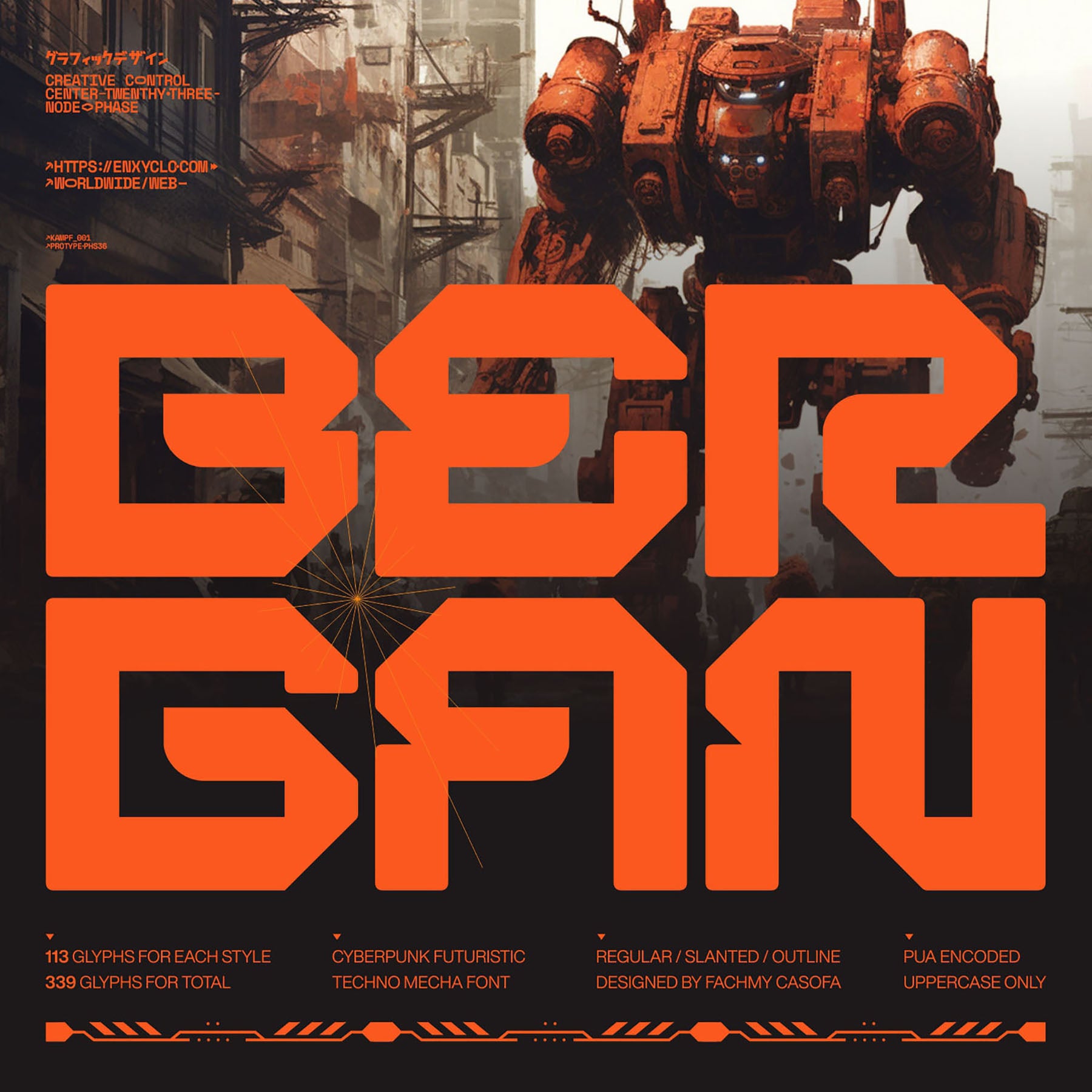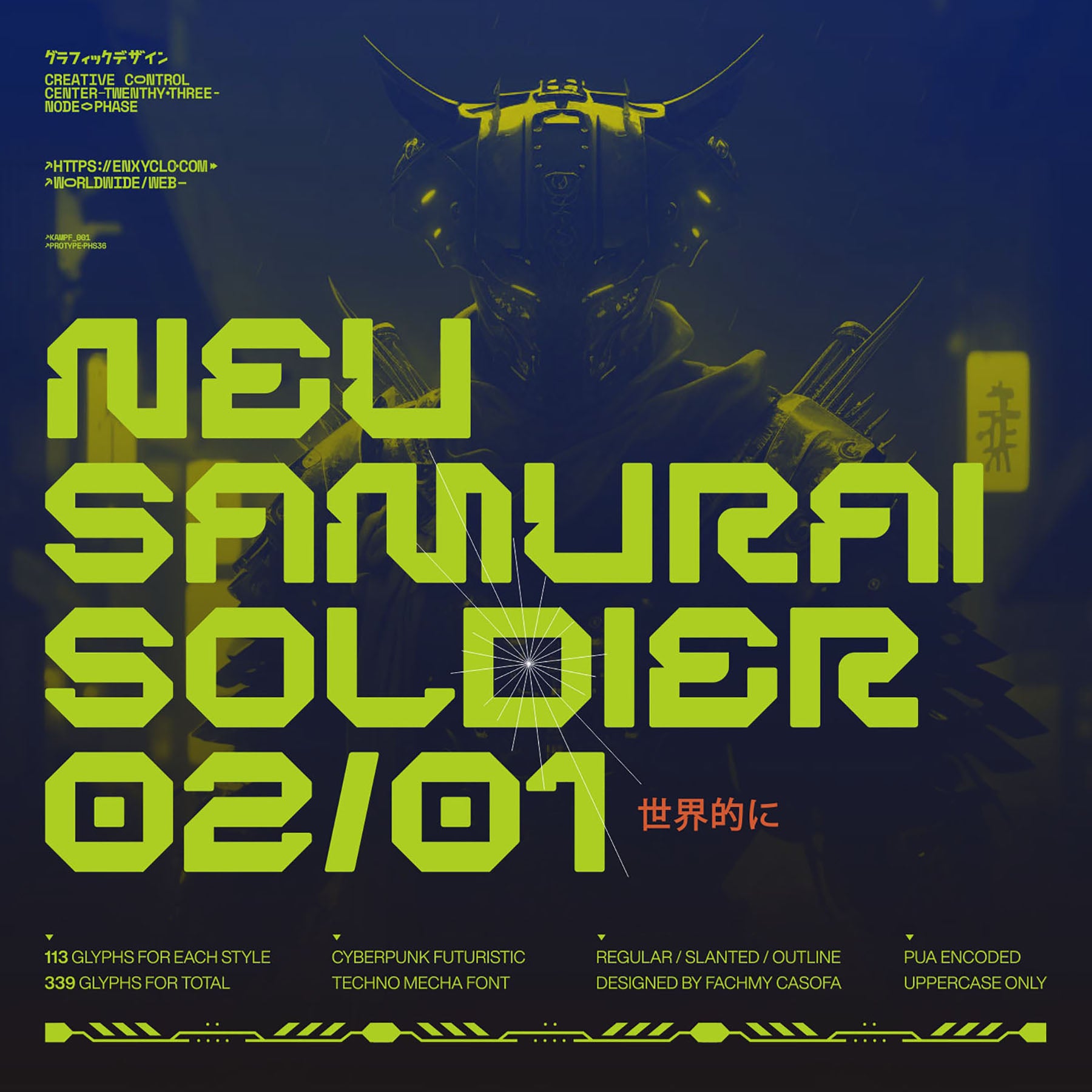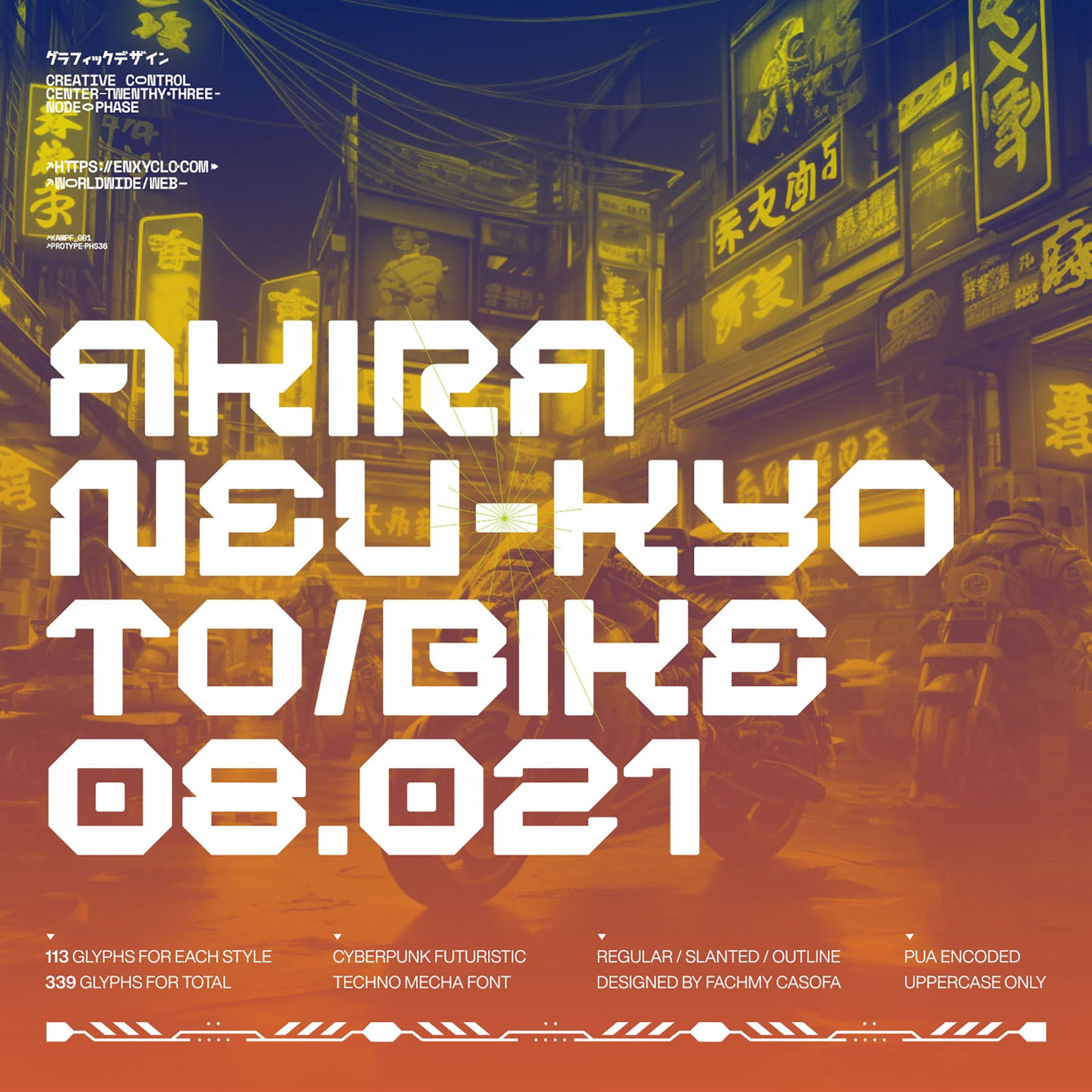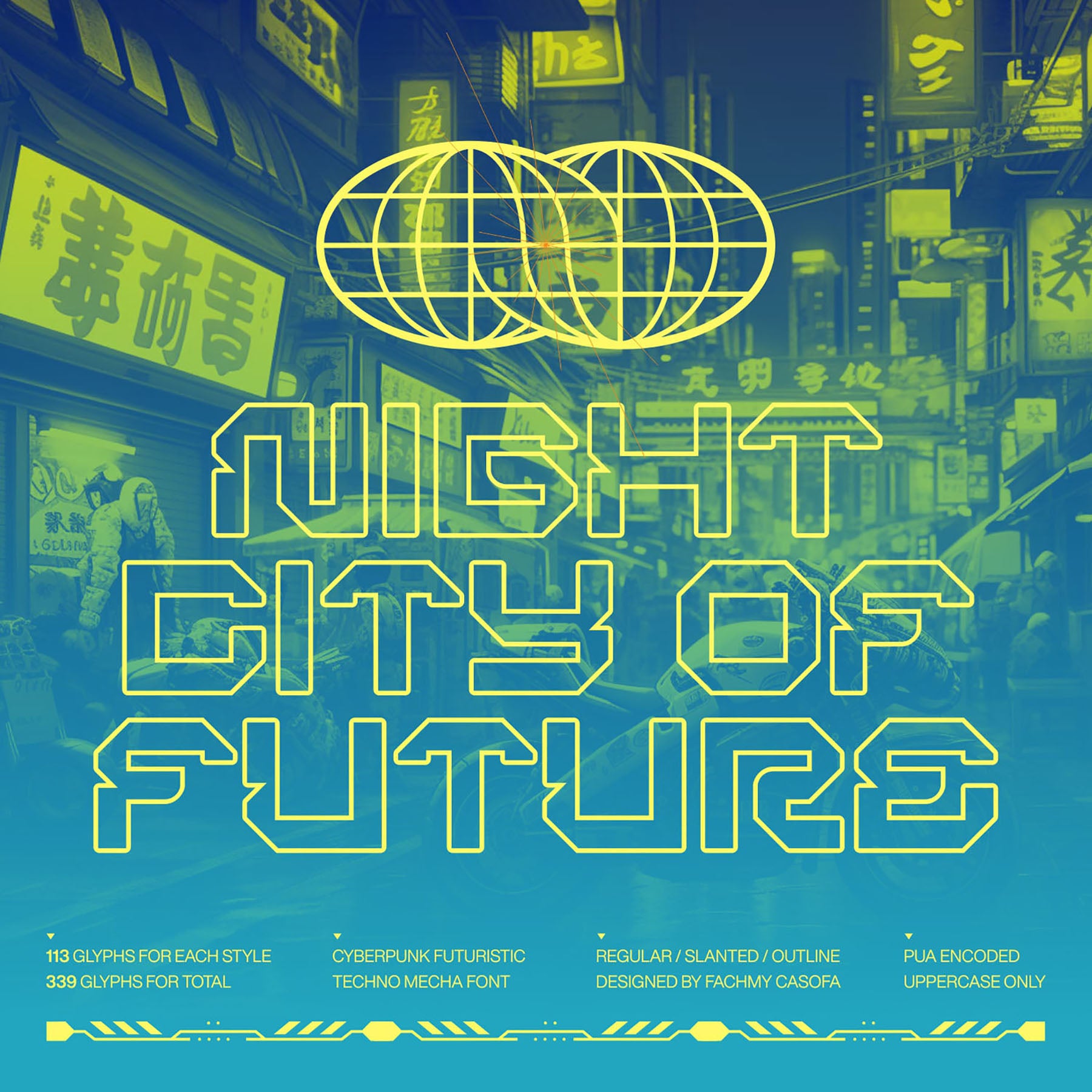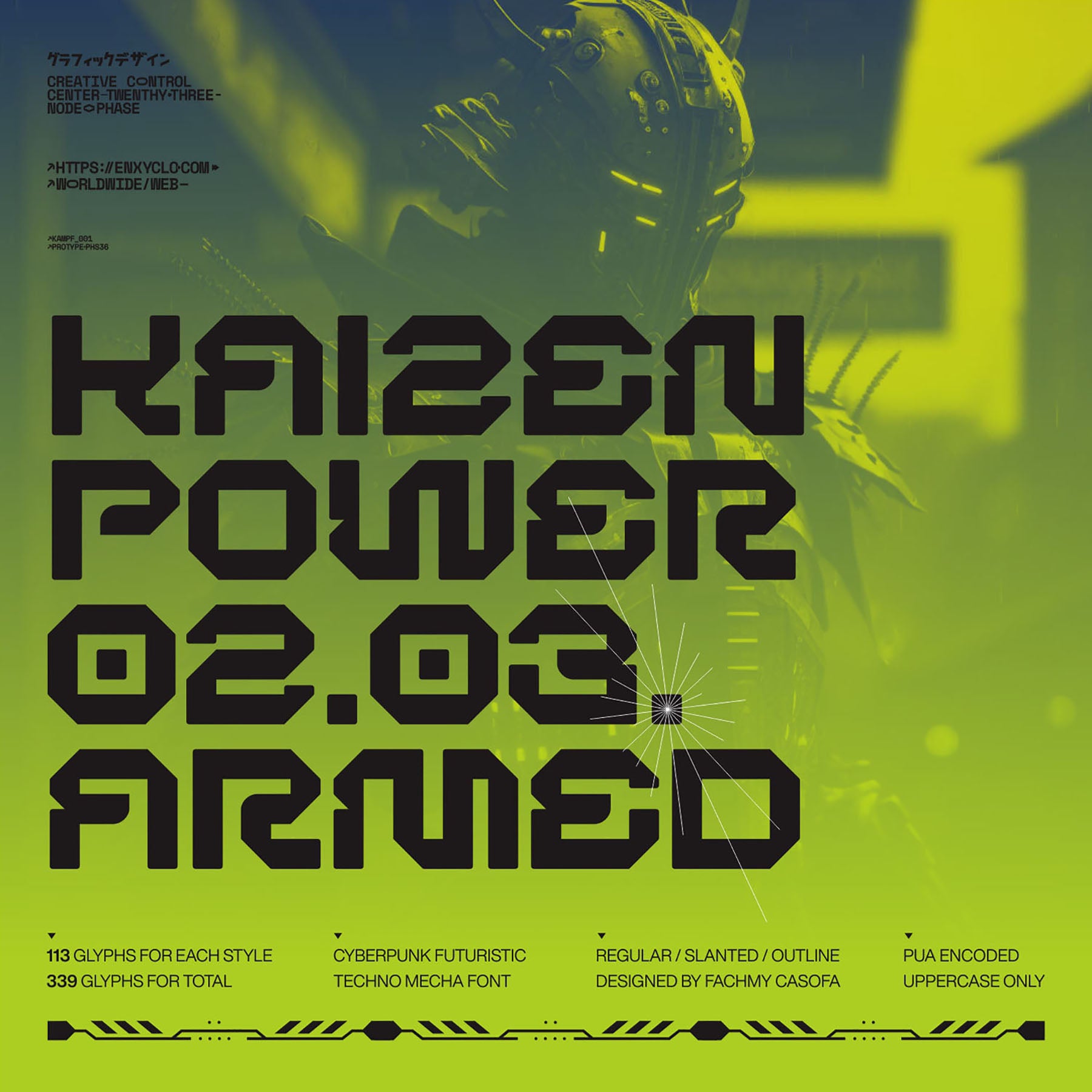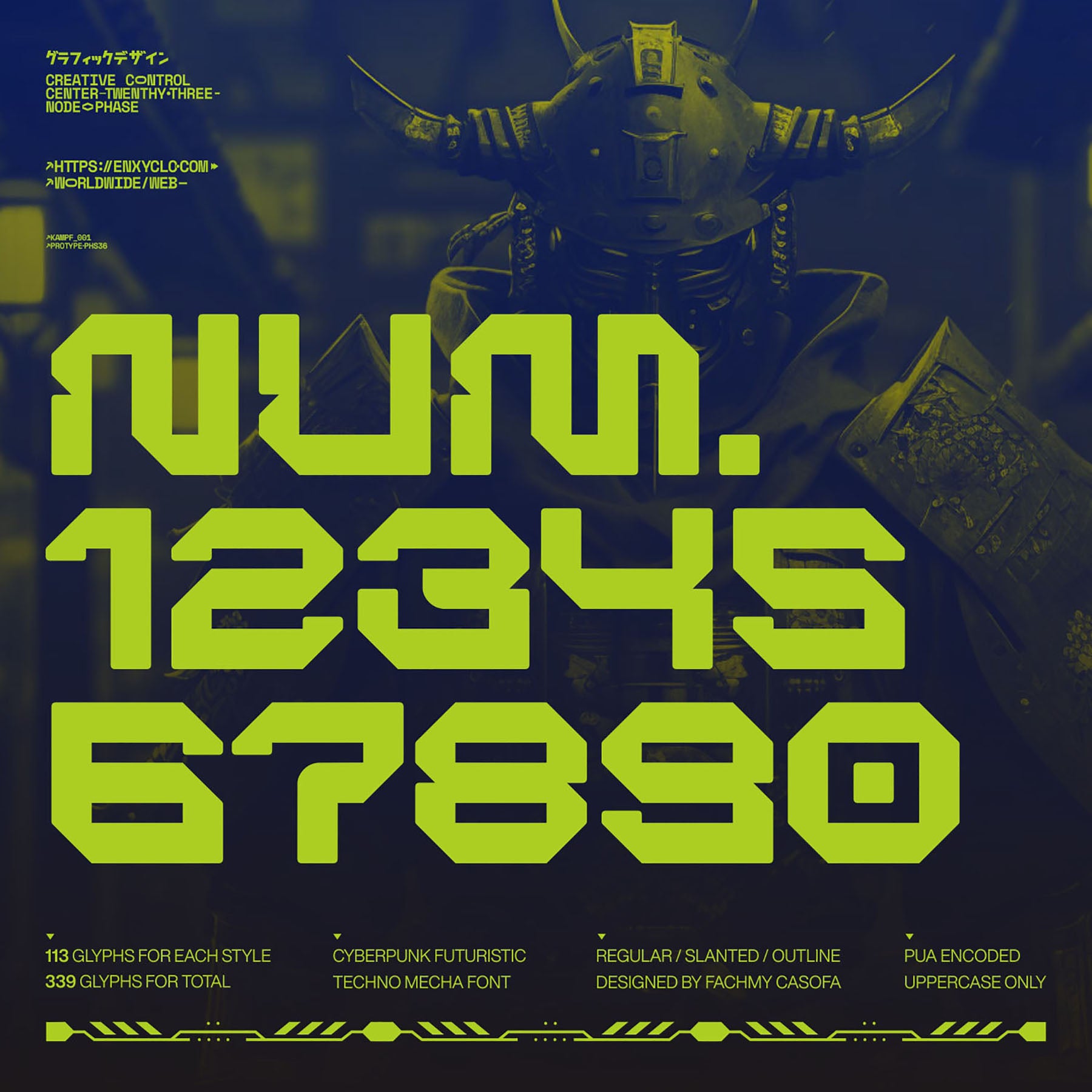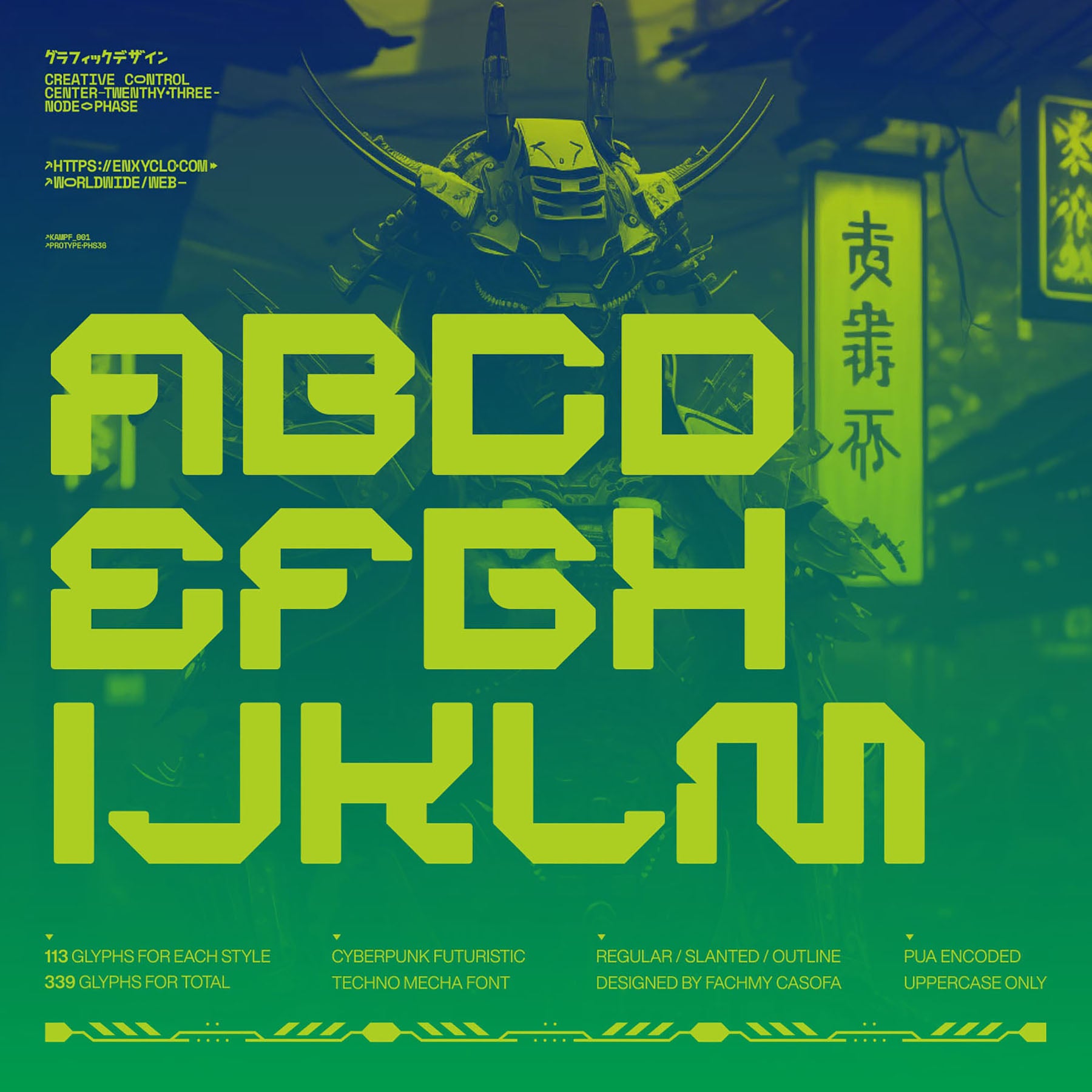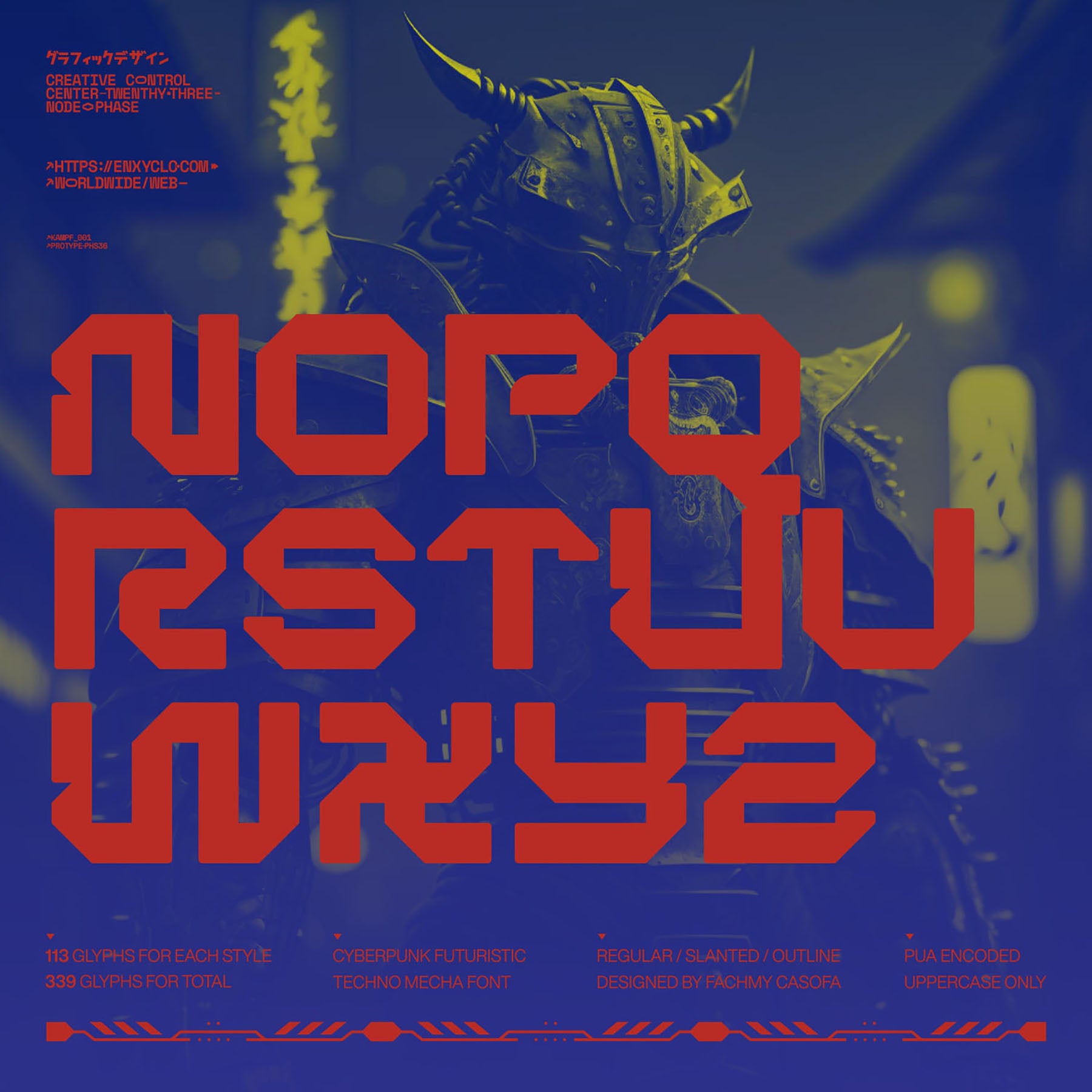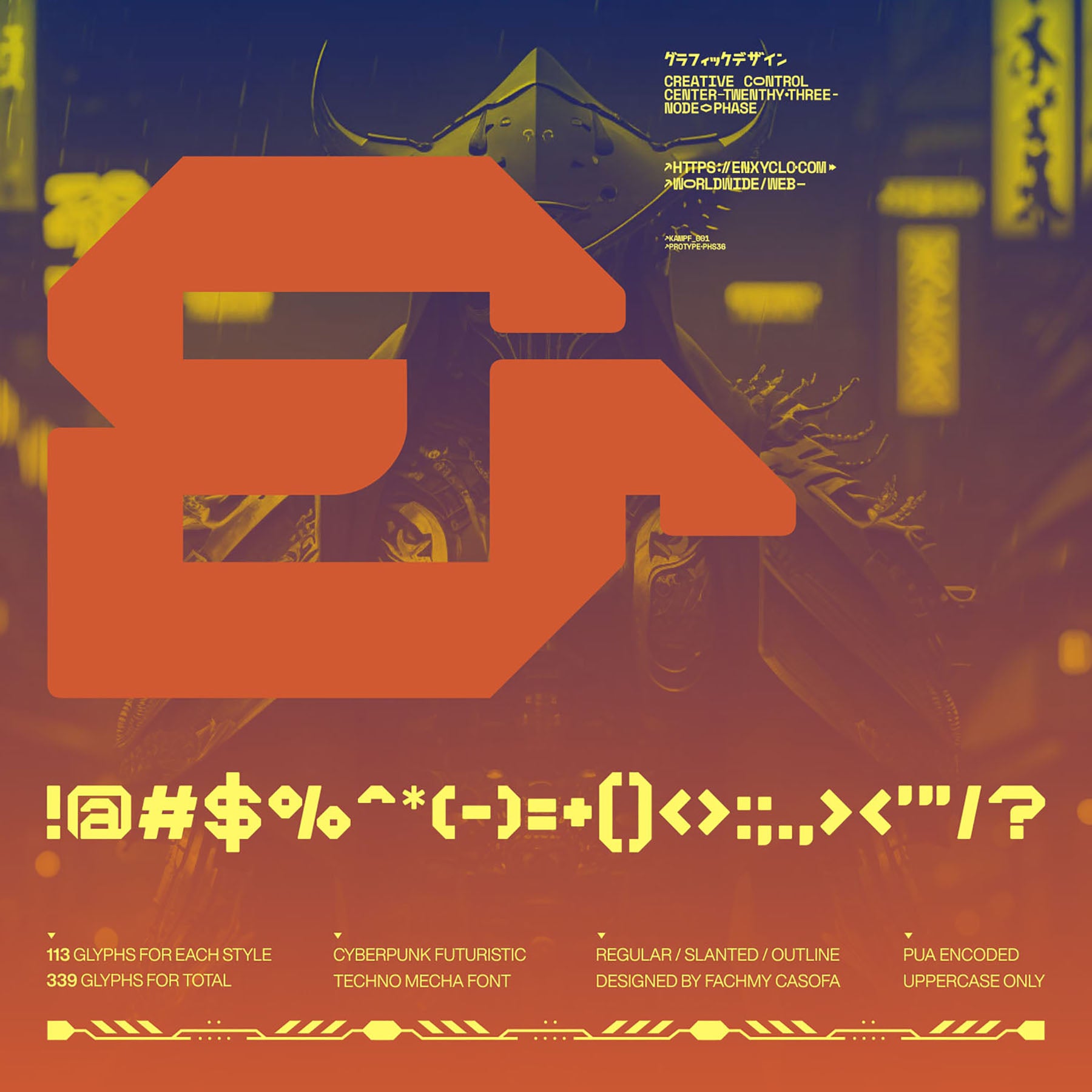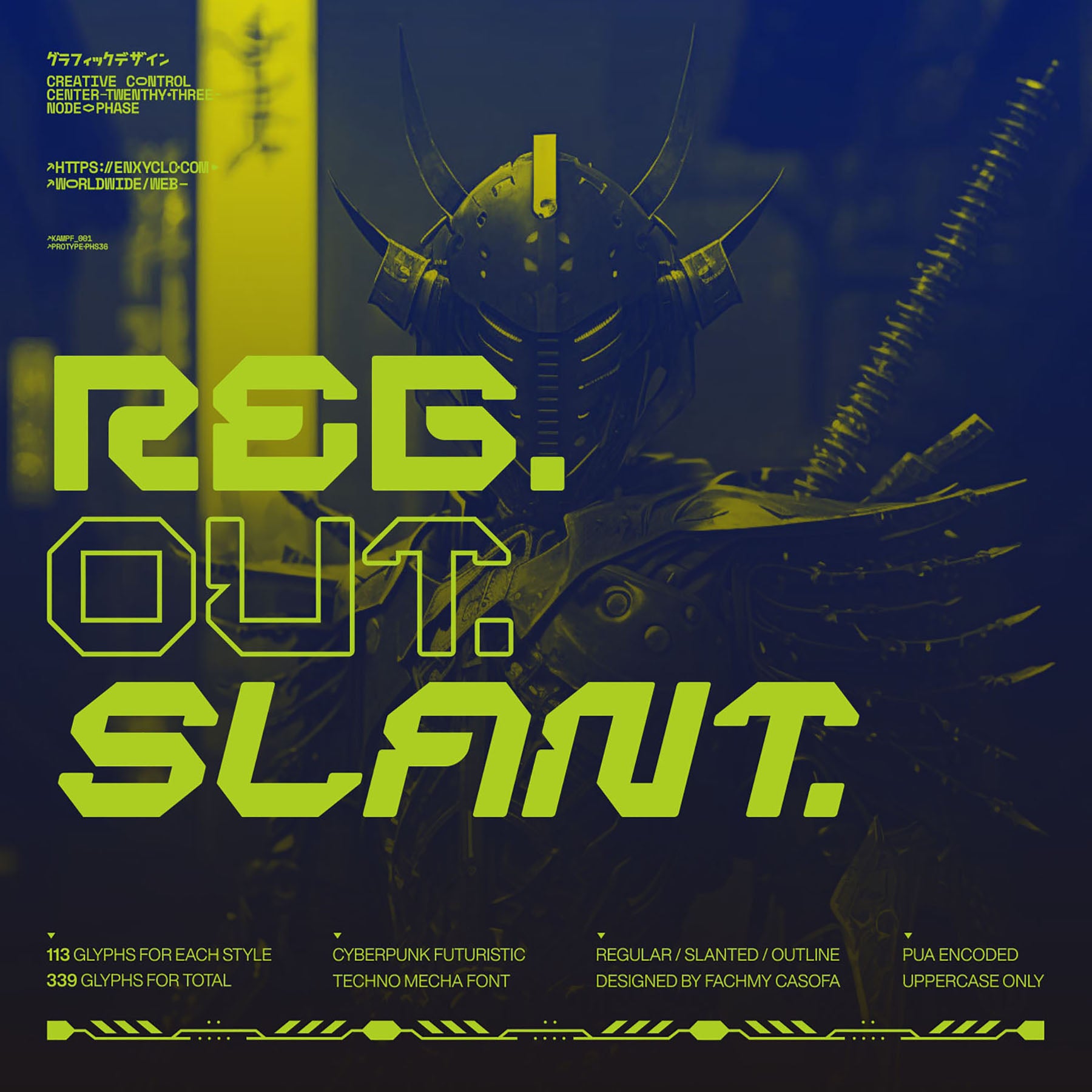
BERGAN Font
BERGAN represents a cutting-edge mecha-inspired industrial display font. Its typeface design elevates your project, infusing it with enhanced potency and inspiration.
By embracing this exquisite and avant-garde display font, you can assuredly differentiate your project from the ordinary. Explore the previews above for a glimpse of how to channel these elements into your creative process.